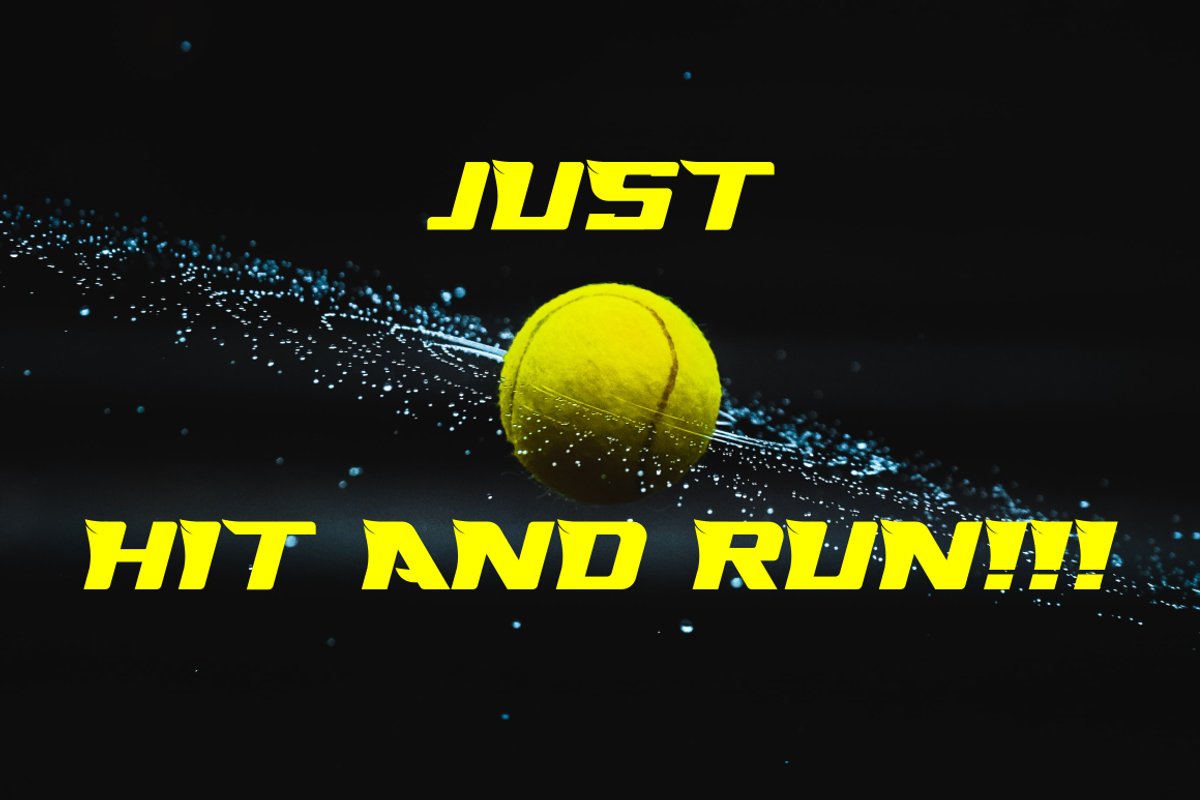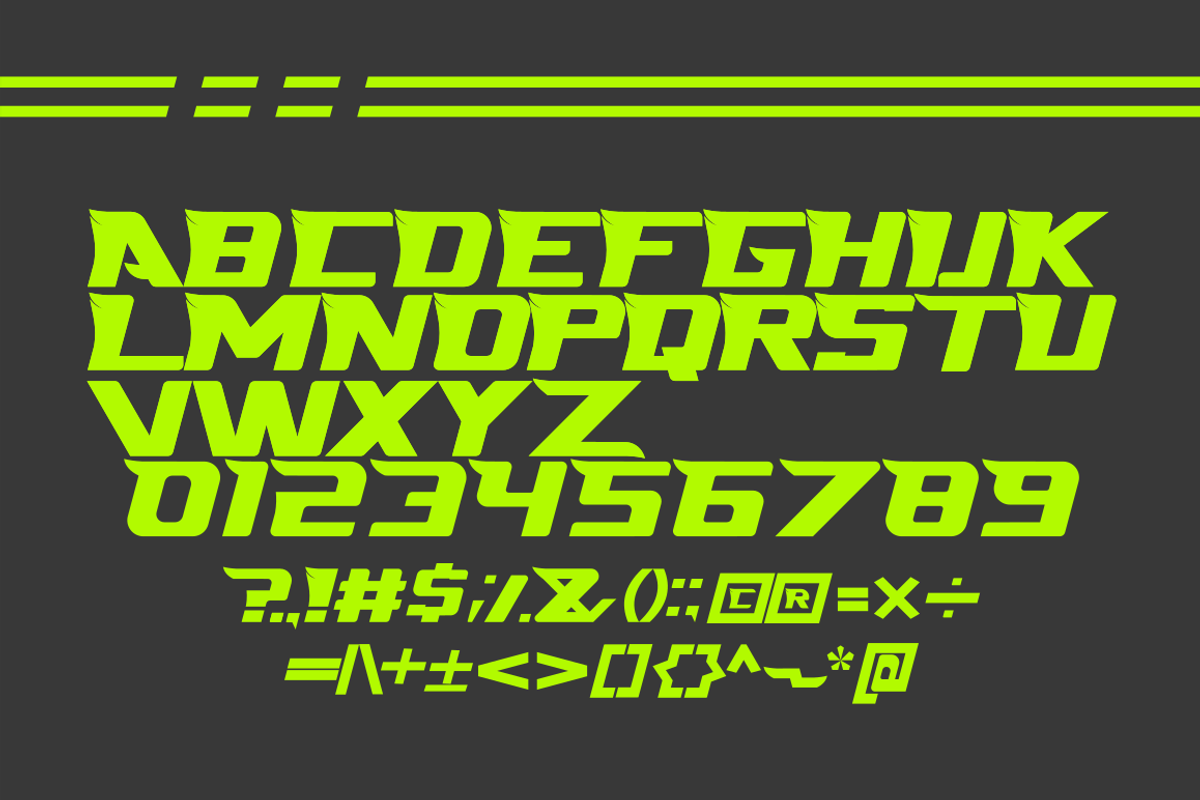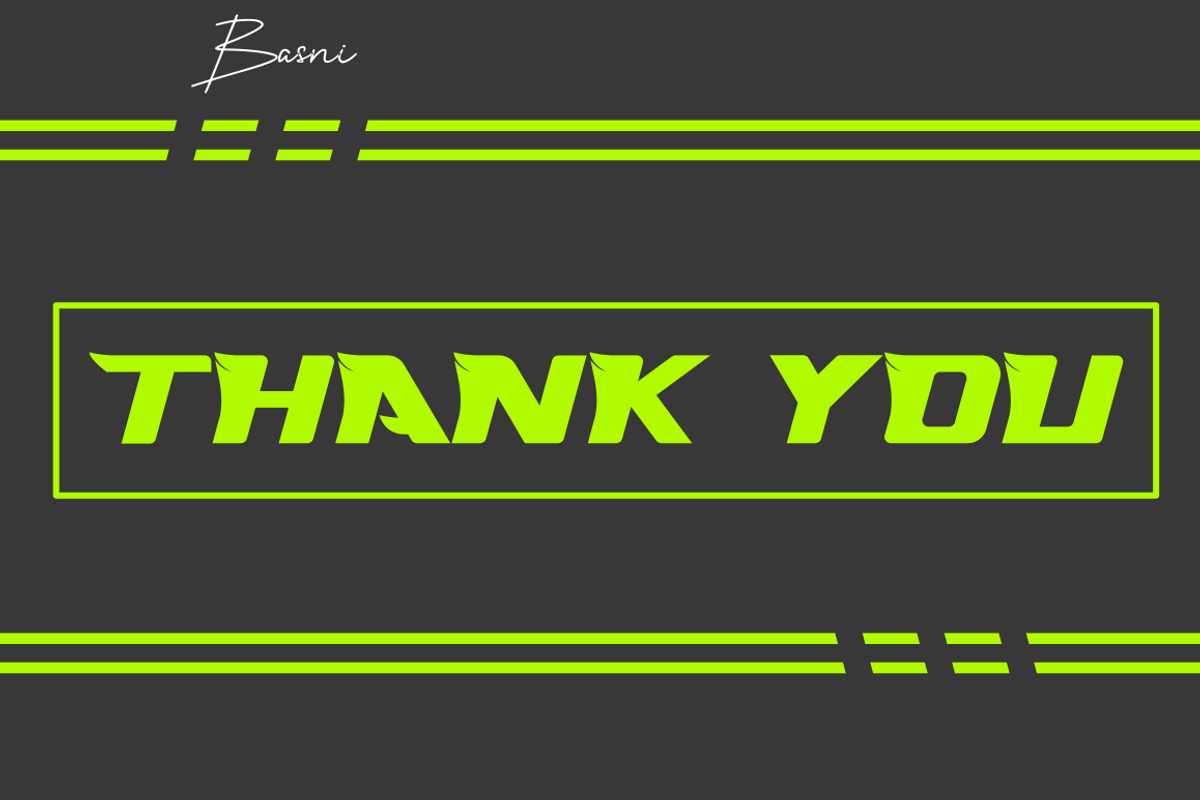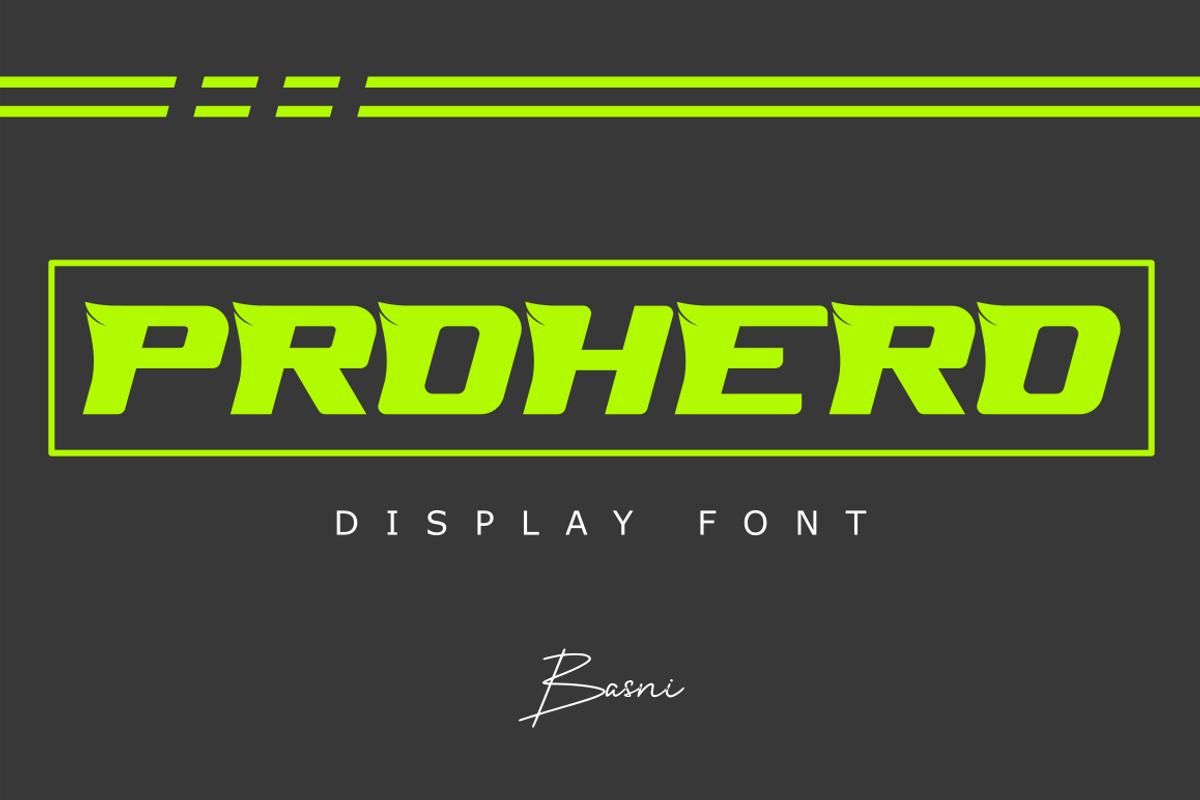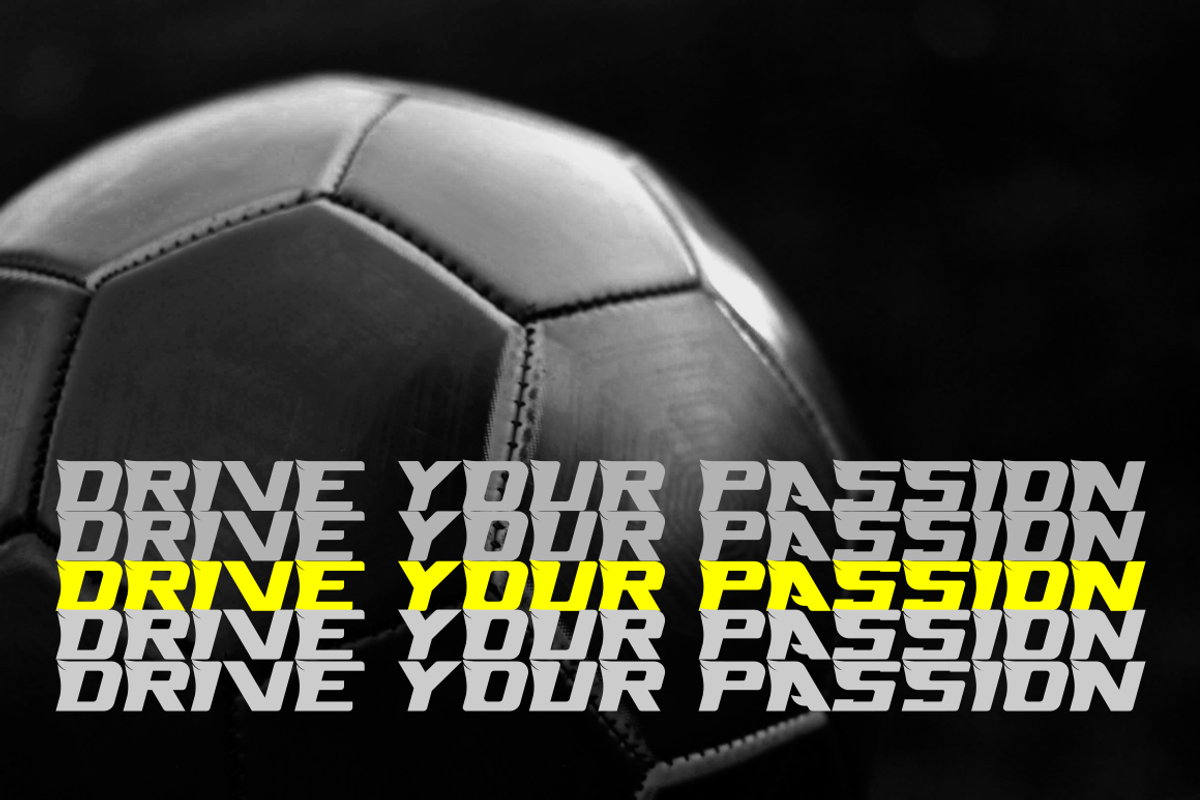
PROHERO - Allcaps display font
PROHERO is modern and sporty style letter. PROHERO very suitable for Sport, automotive, magazine covers, sport game covers, logos & branding, product design, labels and so on. PROHERO looks strong and heroic. What's include: